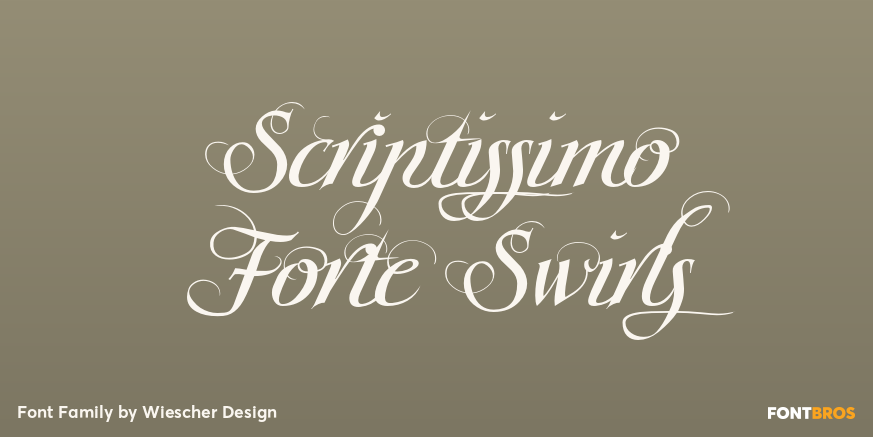
Scriptissimo Forte Swirls
About Scriptissimo Forte Swirls
Scriptissimo-Forte-Swirls is the bold version of Scriptissimo but with lots of swirls. Sometimes a job just calls for lots of embellishments, that\’s what this version is good for. Yours very swirly, Gert Wiescher.